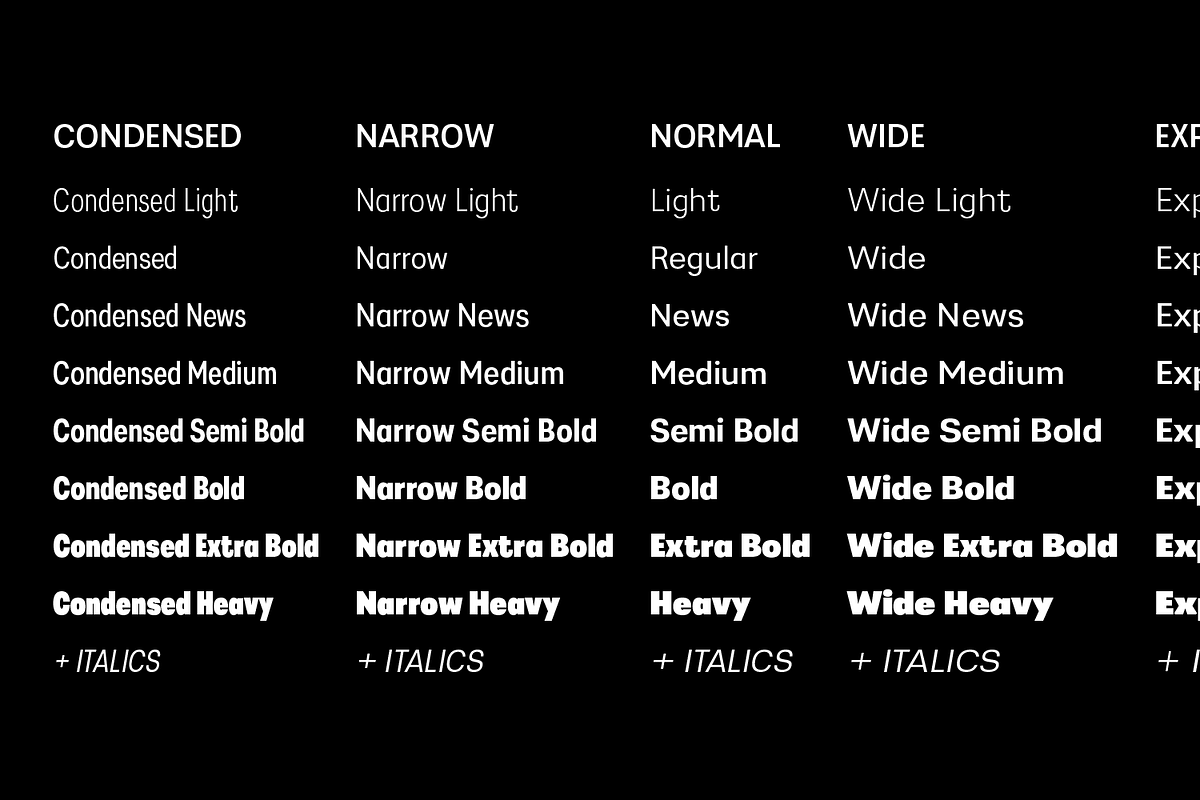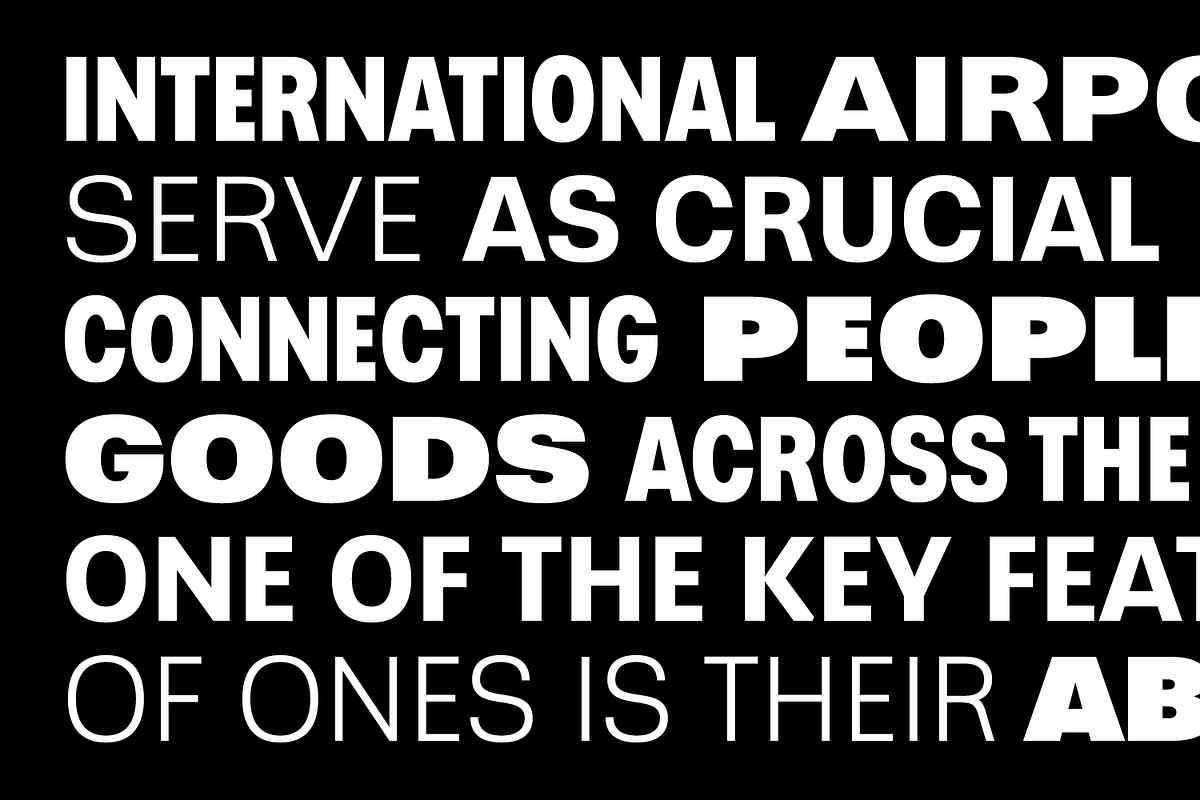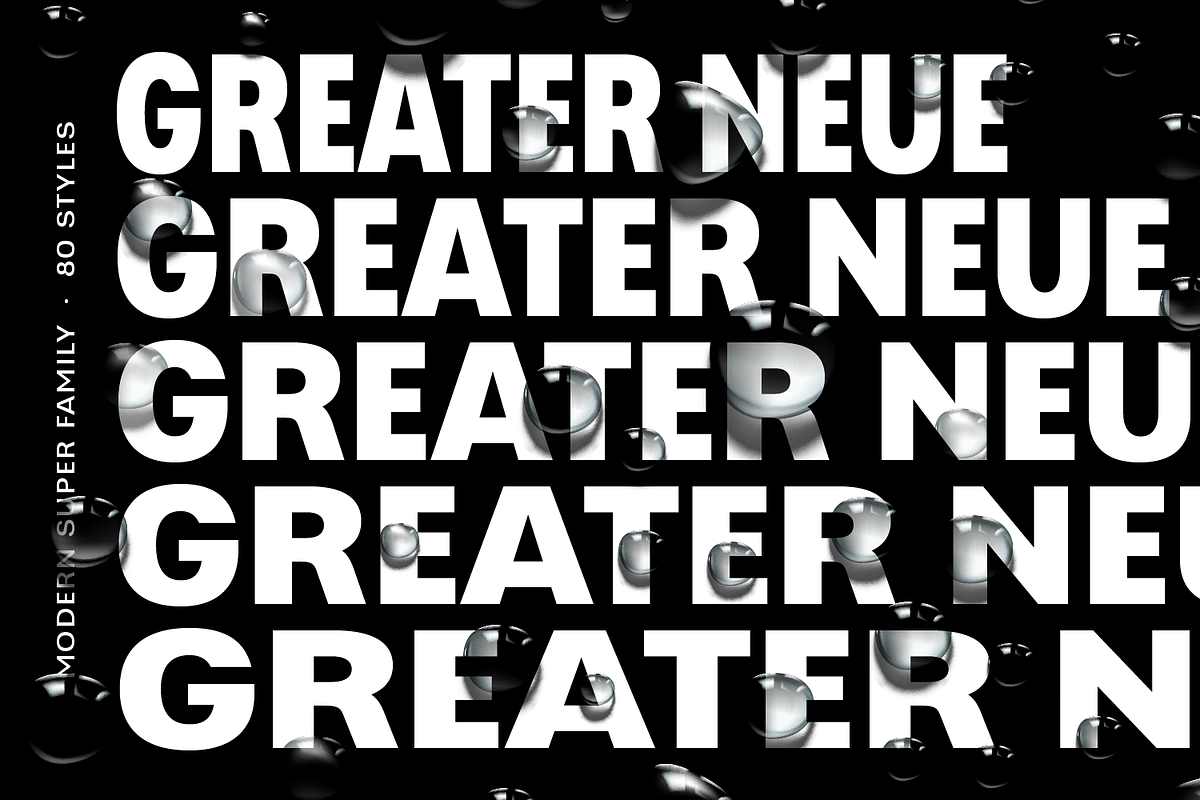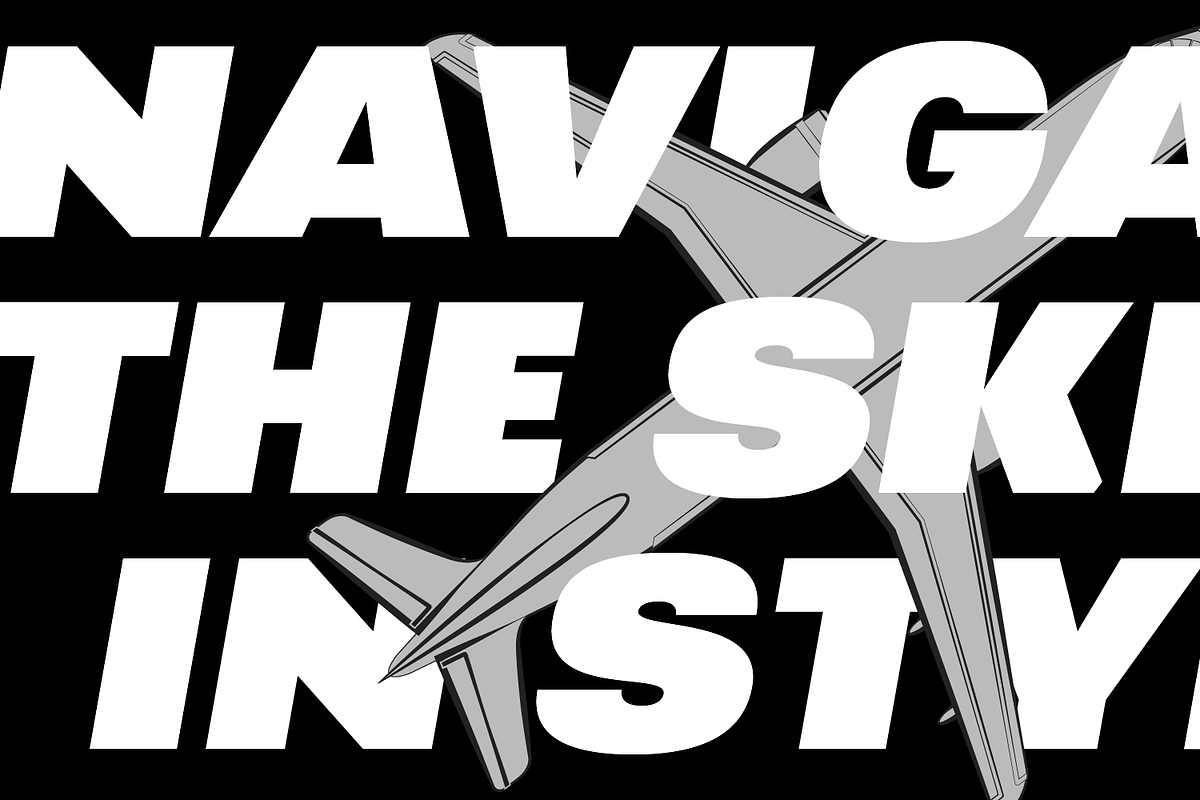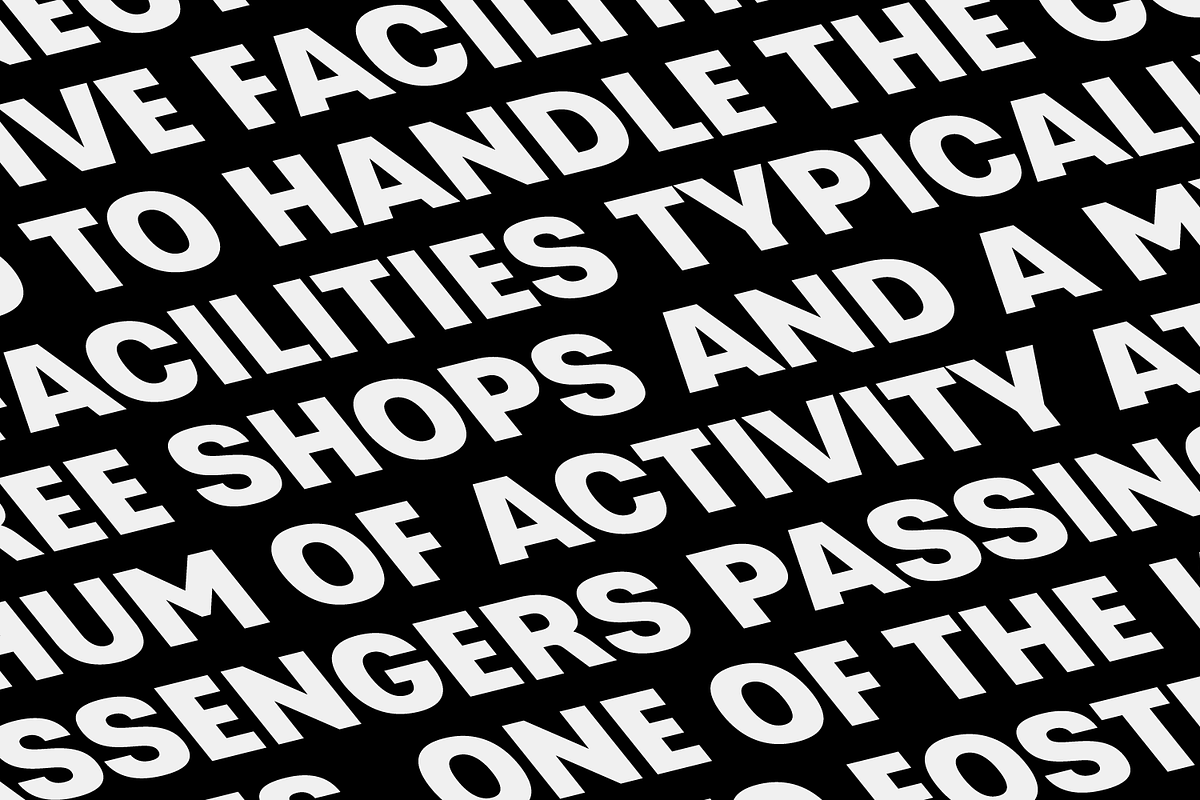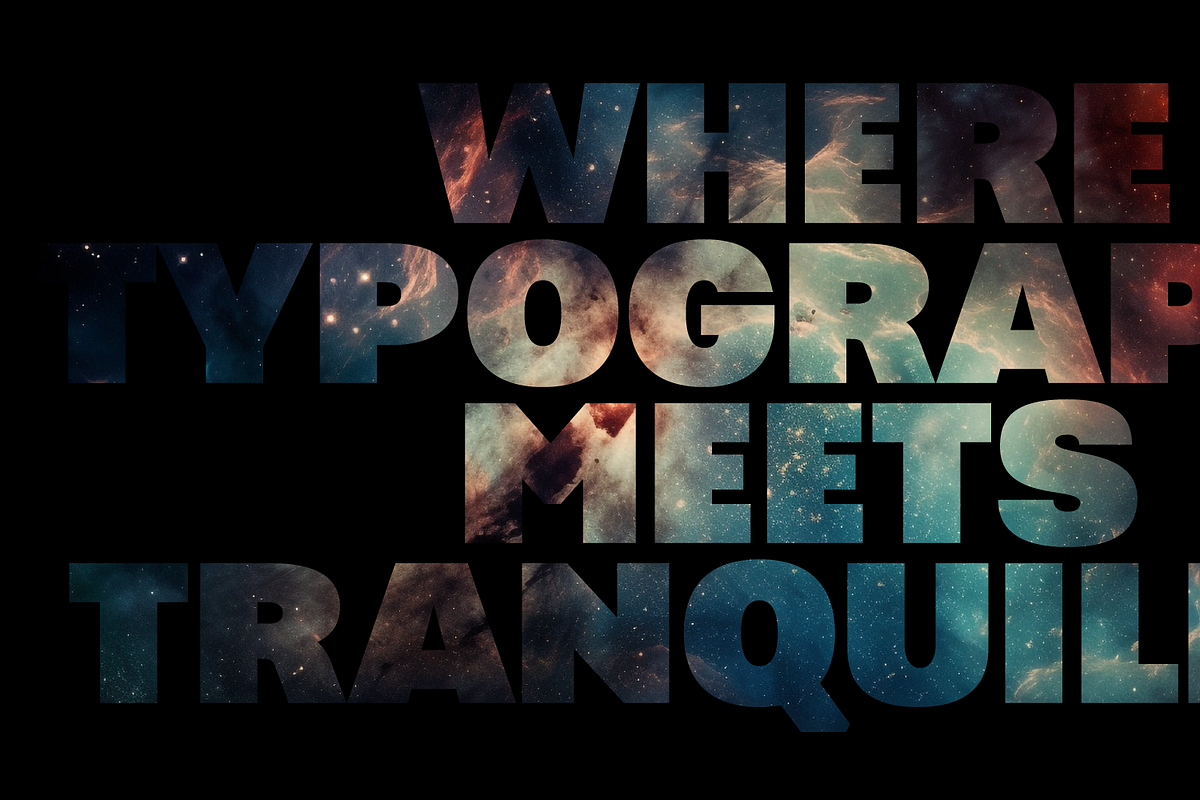
Greater Neue Super Family
Greater Neue Super Family: A bold, clean choice for business, logos, and magazines. Its unique design with elegant ligatures adds a touch of luxury to your corporate and commercial projects. Whether for web or print, it ensures readability and a minimalist, fashion-forward aesthetic. Elevate your branding and design with Greater Neue Font, the perfect choice for today's digital and print needs.
The Greater Neue font family consists of 80 weights, 40 uprights, and matching italics.